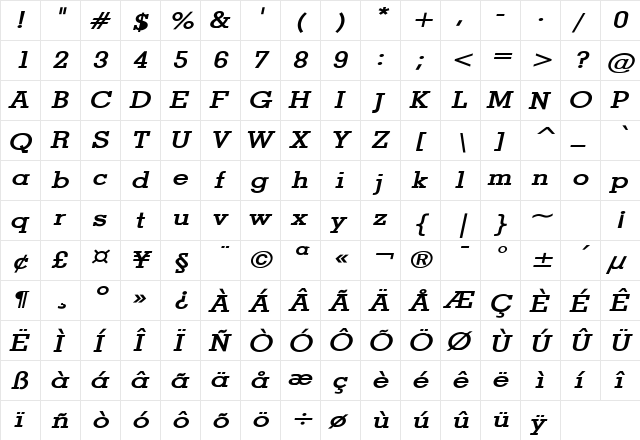
Geo Wide Bold Italic
Design Context for Geo Wide Typeface
Geo Wide offers clean, dependable letterforms without strong stylistic allegiance, making it a practical choice for designers who need flexibility. The dynamic lean of this cut emphasises speed and emphasis in any layout. Its bold stroke weight gives it real presence on the page.
Pro Tip: Try Geo Wide for annotation and caption copy alongside an upright companion — the contrast in angle creates a dynamic but ordered typographic system.